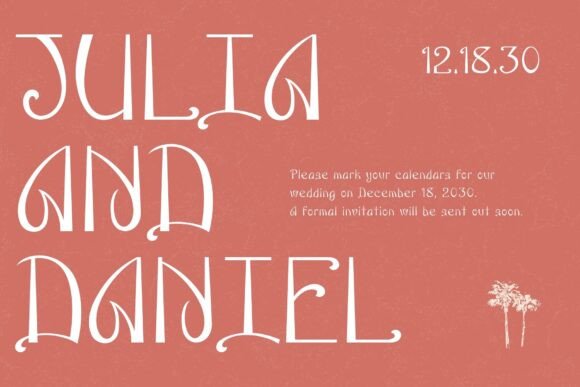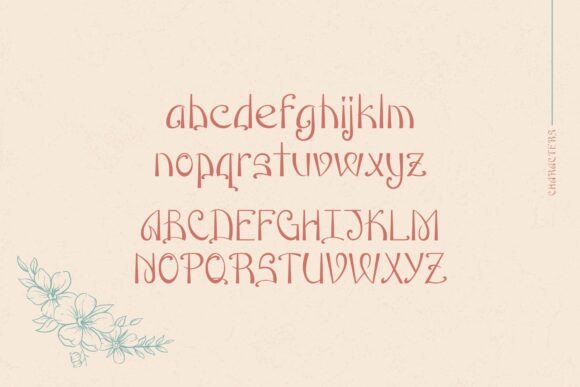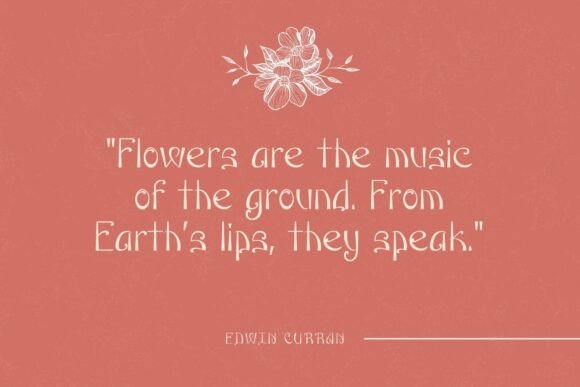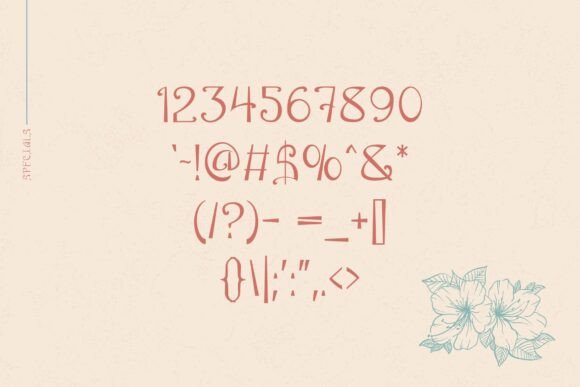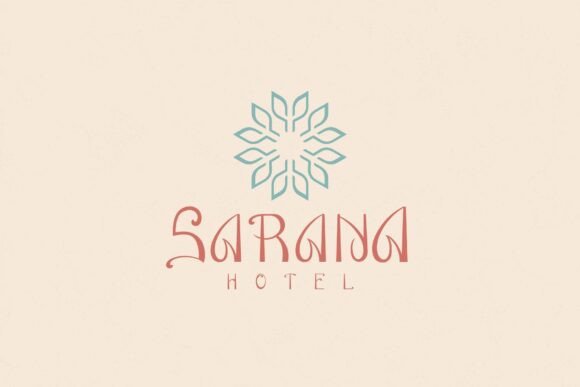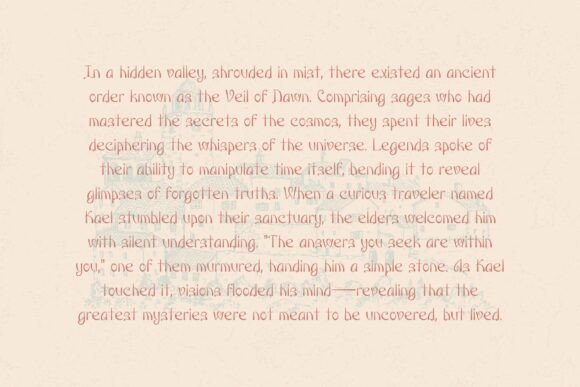
Introduction to Mystic Order Font
Step into a world of mystery and enchantment with Mystic Order, a captivating antique calligraphy typeface that evokes the timeless beauty of handwritten manuscripts and ancient texts.
Perfect for novels, stories, and old English-inspired projects, this font weaves an aura of sophistication and intrigue Whether youโre designing logos, wedding invitations, or packaging, Mystic Order brings an elegant, vintage charm that transforms any project into a work of art.